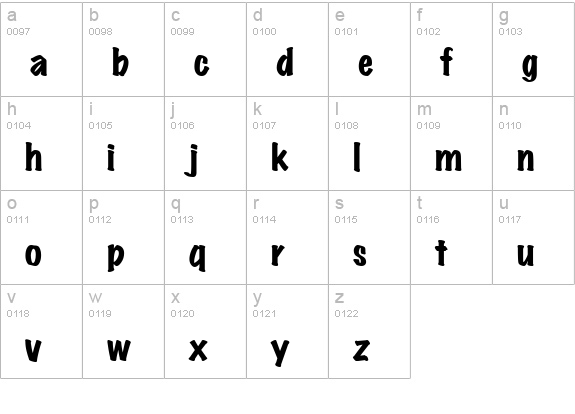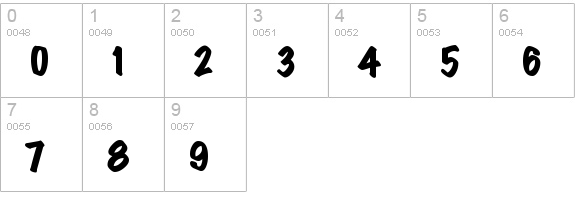
Marker Heavy Font Details
Marker Heavy is a heavy, high-impact variant in the Marker typeface family \xE2\x80\x94 well suited to high-impact headlines, posters, and display advertising.
Introducing Marker Heavy font, a bold and eye-catching typeface that is sure to make a statement. With its thick, marker-like strokes and strong presence, this font is perfect for adding a touch of personality and creativity to your designs. Marker Heavy font is not only visually appealing, but it also offers great versatility. Whether you're designing a logo, creating a poster, or crafting a social media graphic, this font will effortlessly draw attention to your message. But what sets Marker Heavy font apart is that it is not only captivating, but also freely available to download at FontsMarket.com. Yes, you heard it right! This font can be yours without any cost, making it a valuable asset for designers on a budget or anyone looking to explore their creative potential. Don't miss out on this opportunity to enhance your designs with the bold and expressive nature of Marker Heavy font. Download it for free today at FontsMarket.com and let your creativity flow.